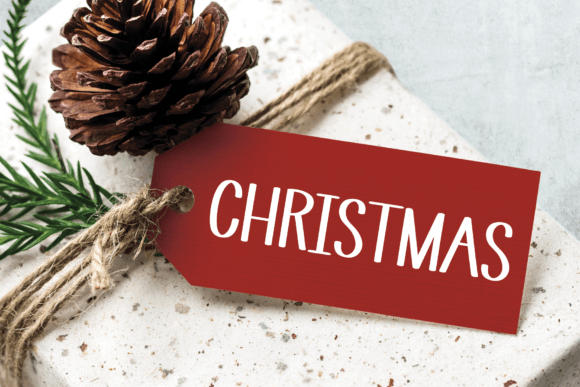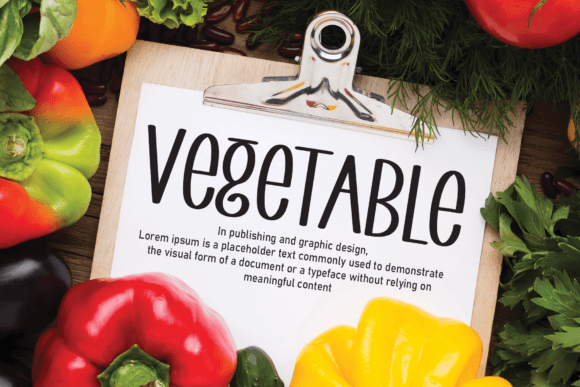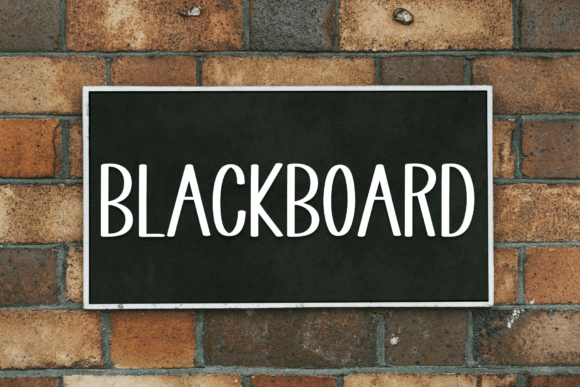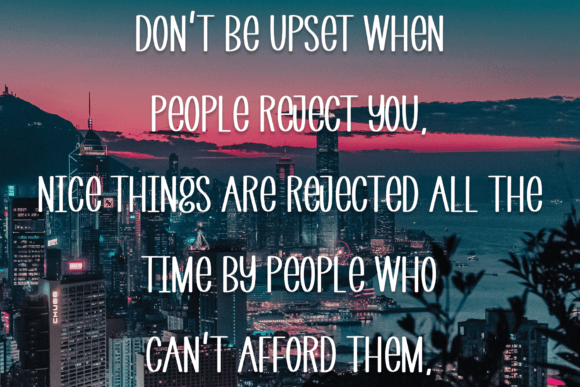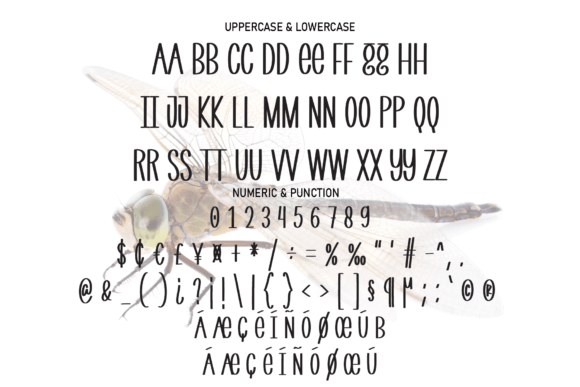
Dragonfly Font: Elevate Your Designs with a Playful and Stylish Touch
Are you on the hunt for a font that embodies a youthful spirit while exuding professionalism? Look no further than the Dragonfly Font. This versatile typeface is perfect for a wide range of design projects, from sleek branding designs and website headers to fun and casual creations like packaging, posters, and social media posts.
The Essence of Dragonfly Font
Dragonfly Font is characterized by its playful and stylish aesthetic, making it an excellent choice for designers who want to add a touch of whimsy to their work without compromising on professionalism. Its unique charm is suitable for various applications, including:
- Branding Designs: Create a lasting impression with Dragonfly Font’s distinctive style, perfect for logos, business cards, and letterheads.
- Websites: Enhance your website’s visual appeal with Dragonfly Font’s clean and readable design, ideal for headings, titles, and emphasis text.
- Labels and Packaging: Add a playful touch to your product labels, packaging, and marketing materials with Dragonfly Font’s youthful vibe.
- Social Media Posts: Stand out on social media with eye-catching graphics and quotes created using Dragonfly Font.
- Invitations and Special Occasions: Make your invitations, greeting cards, and special occasion cards more personalized and memorable with Dragonfly Font.
Why Choose Dragonfly Font?
So, what sets Dragonfly Font apart from other fonts? Here are a few reasons why designers and crafters love this versatile typeface:
- Unique Style: Dragonfly Font boasts a distinctive, hand-crafted look that adds a touch of personality to any design project.
- Readability: Despite its playful nature, Dragonfly Font remains highly readable, making it suitable for both headings and body text.
- Flexibility: Use Dragonfly Font for a wide range of design projects, from professional and corporate to casual and creative.
Tips for Using Dragonfly Font Effectively
To get the most out of Dragonfly Font, consider the following tips:
- Mix and Match: Combine Dragonfly Font with other fonts to create visually appealing contrast and hierarchy in your designs.
- Play with Colors: Experiment with different colors to bring out the playful and youthful spirit of Dragonfly Font.
- Experiment with Sizes: Use Dragonfly Font in various sizes to create emphasis and add visual interest to your designs.
In conclusion, Dragonfly Font is a versatile and stylish typeface that can elevate your design projects with its playful and youthful spirit. Whether you’re working on professional branding designs or casual social media posts, Dragonfly Font is an excellent choice. Its unique style, readability, and flexibility make it a valuable addition to any designer’s toolkit.